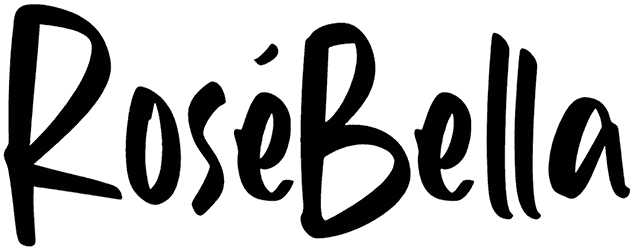
If you are looking for a straightforward solution to bewilder your audience at the first contact, we offer you to pick up RoseBella for creating business cards, logos, flyers, birthday invitations, and book covers.
This handwritten font can add a sense of vitality, dynamism, delicacy, and drama to any kind of artwork that requires a personalized touch. As the last word, we recommend that you take the best possible advantage of its two distinctive styles.